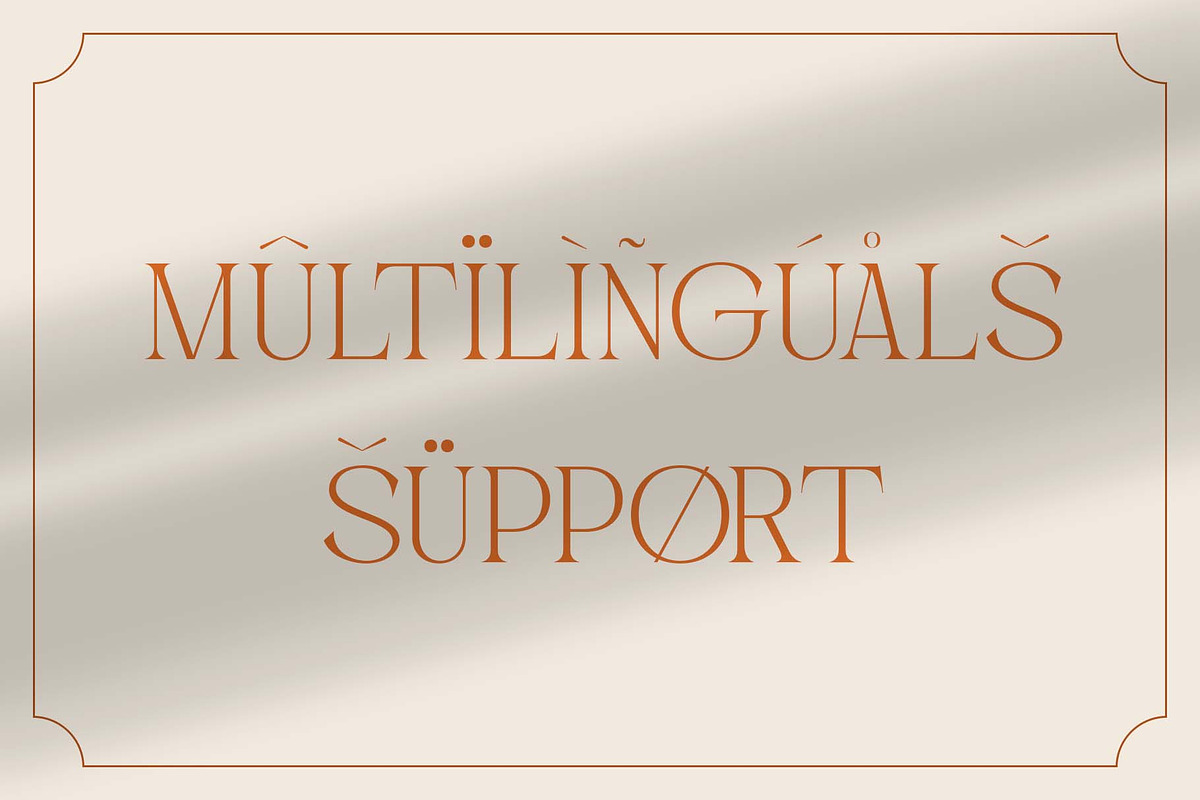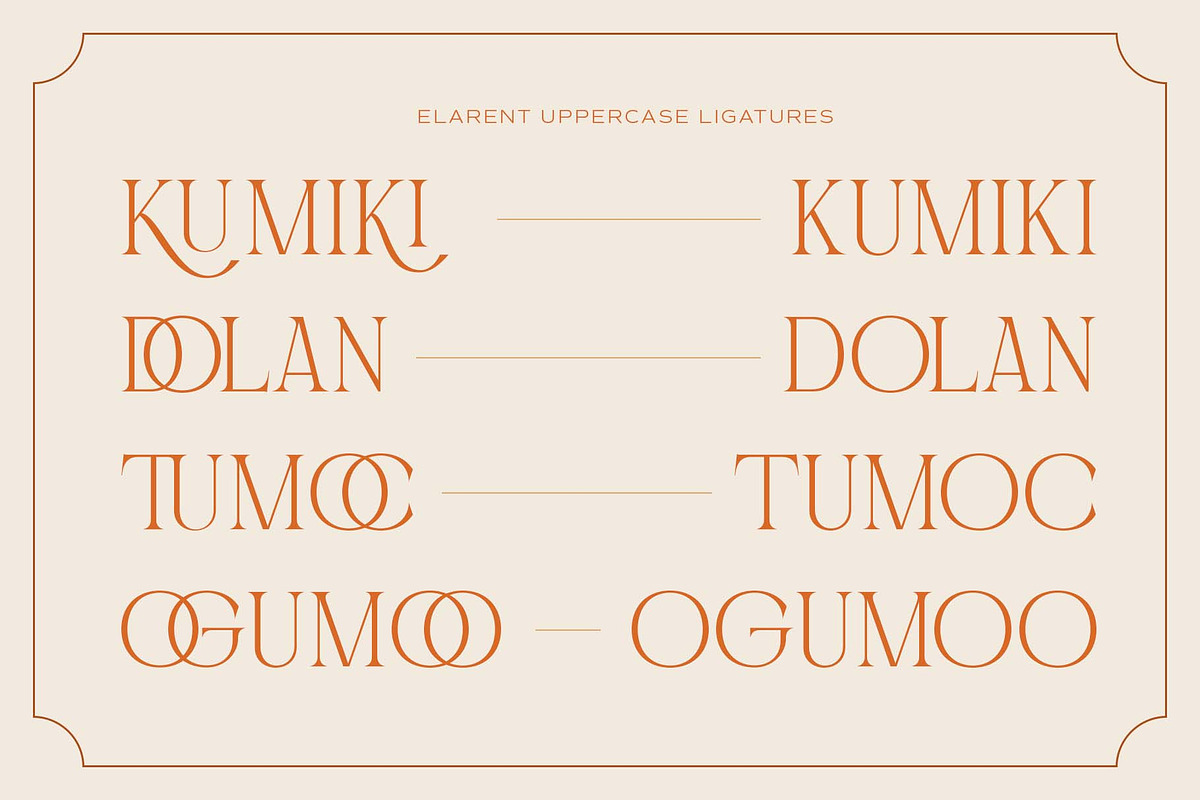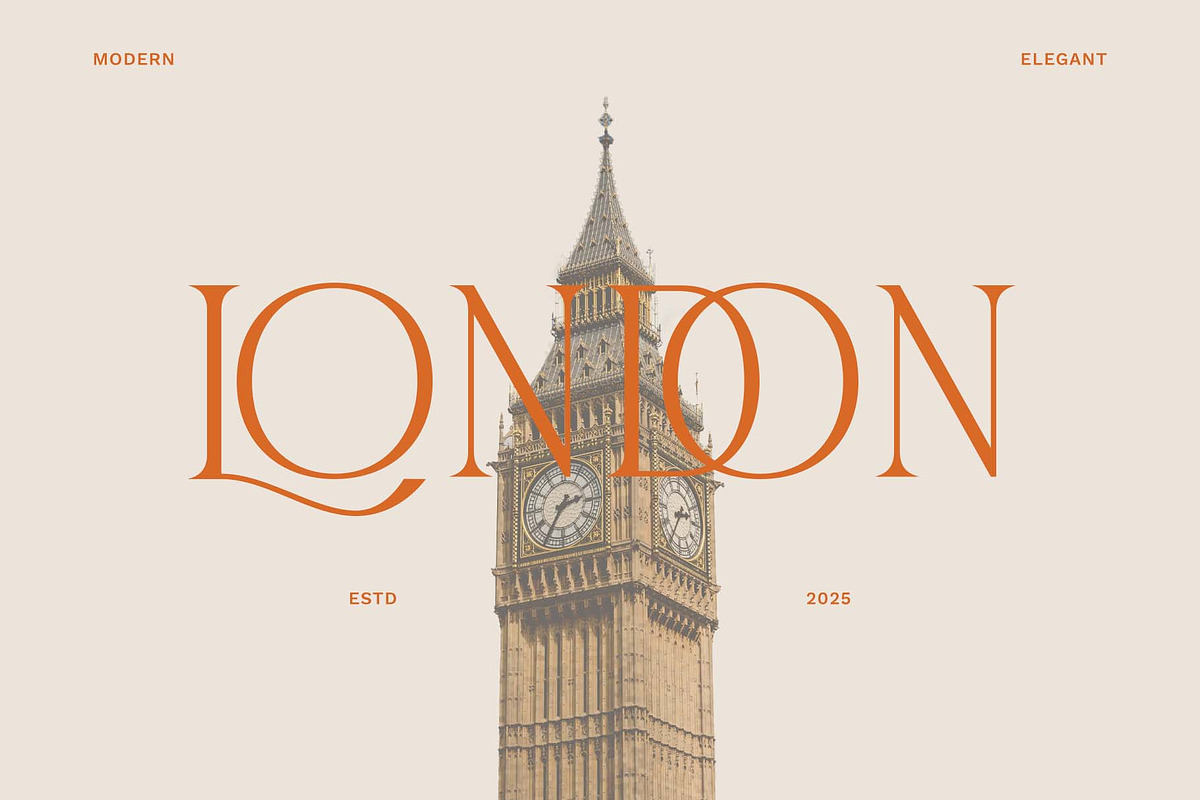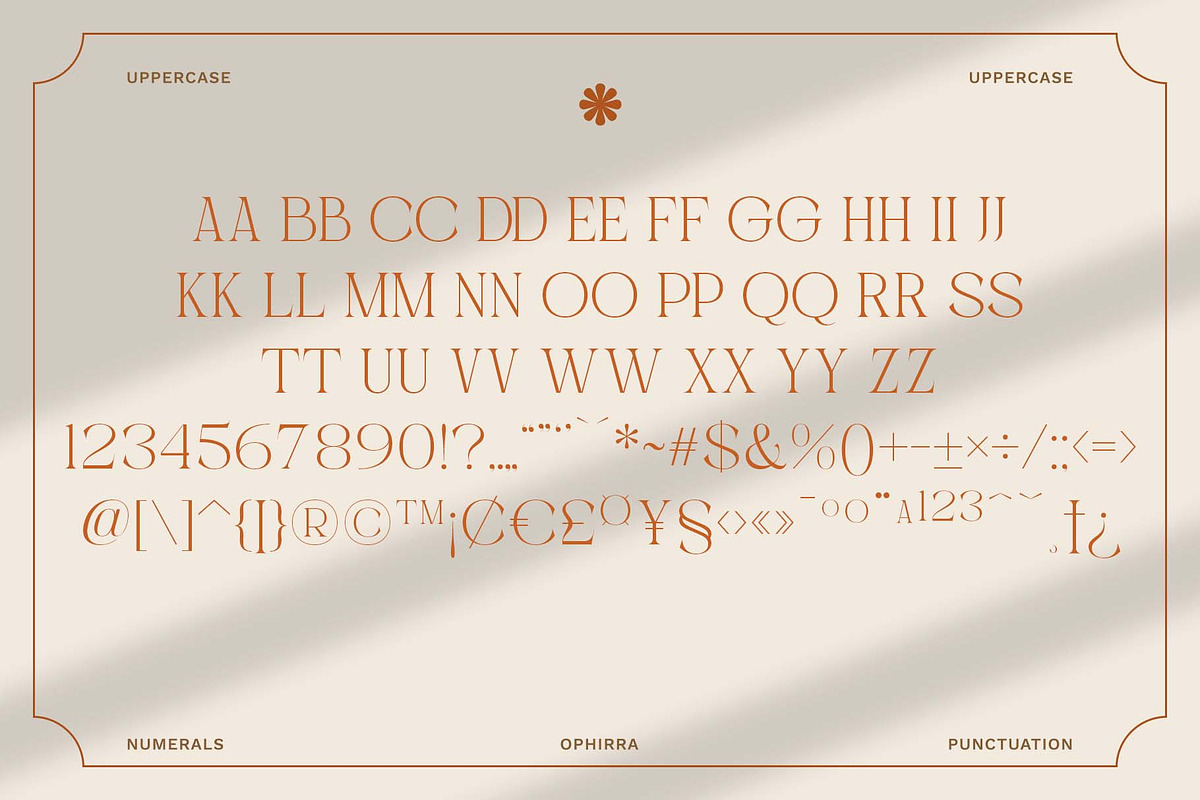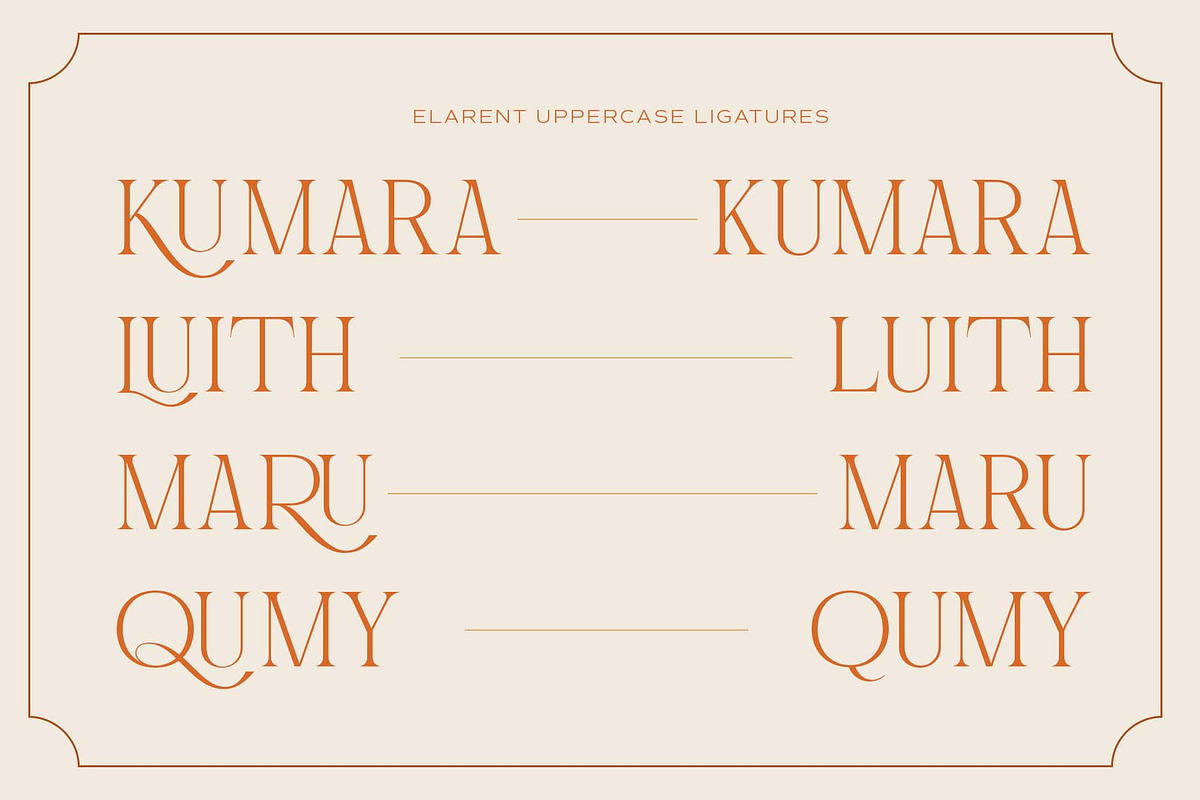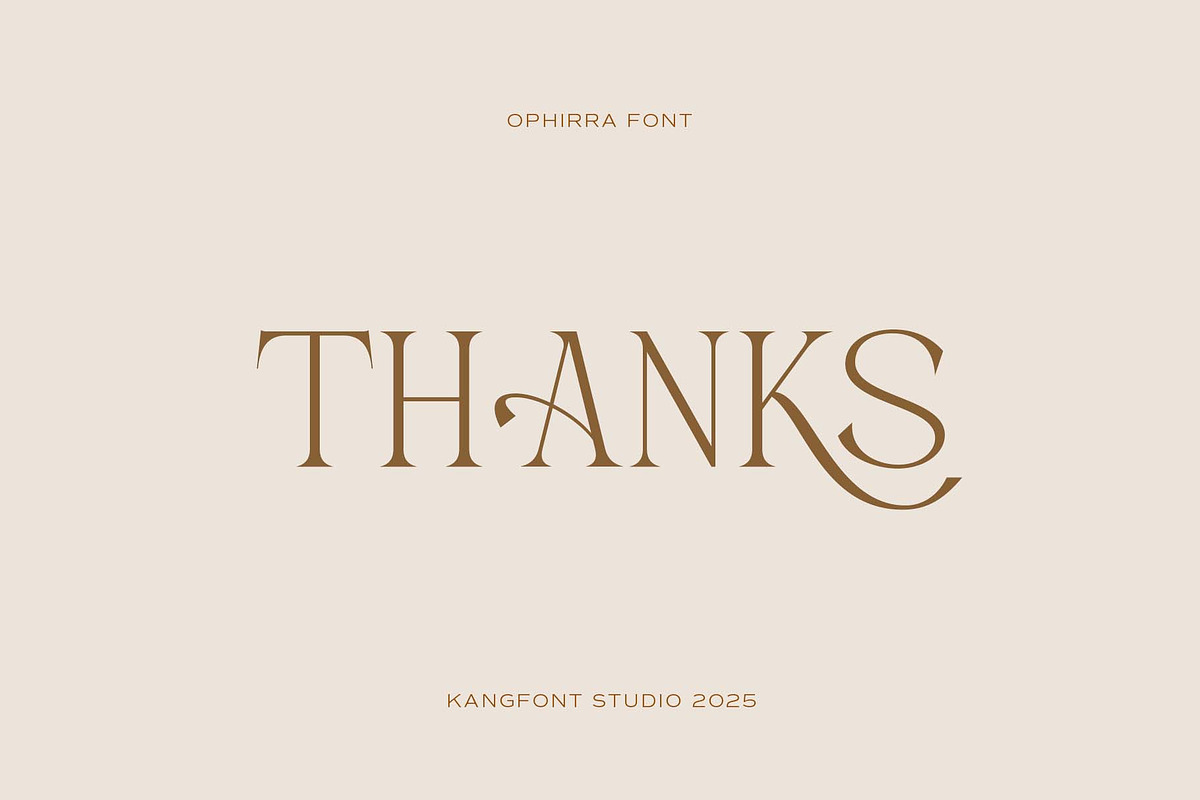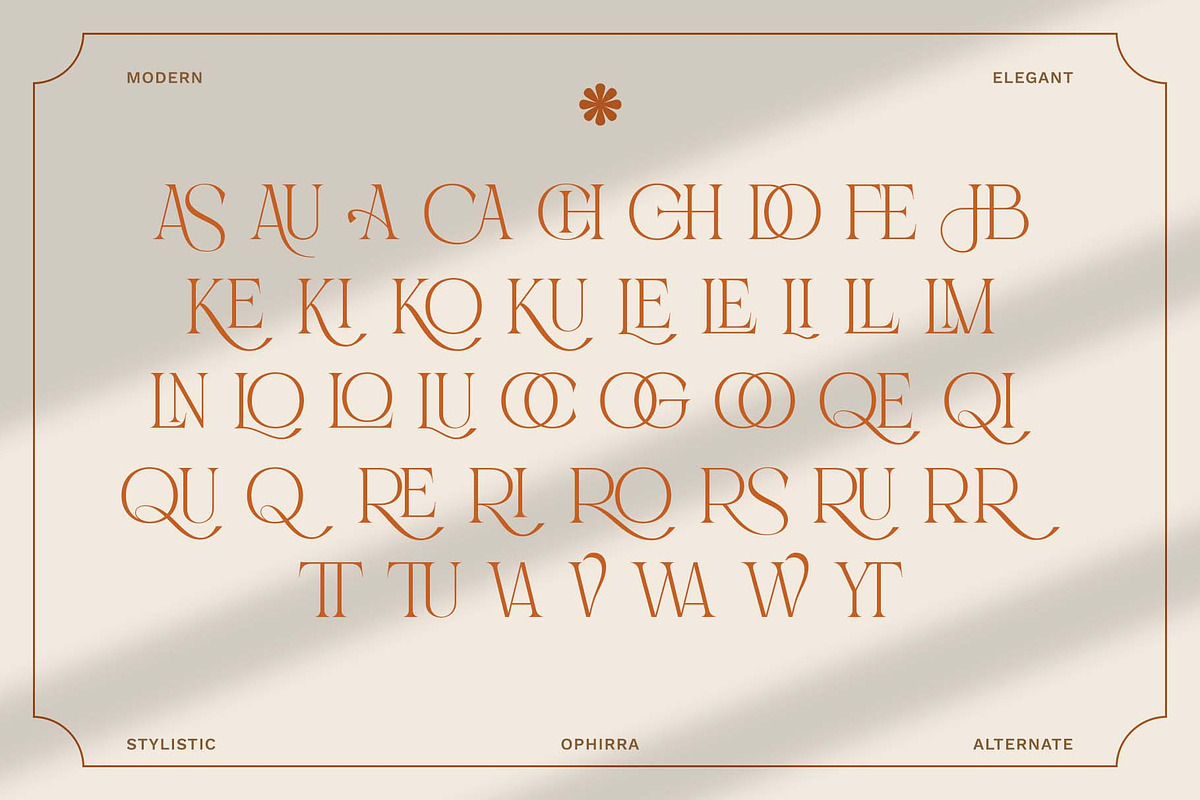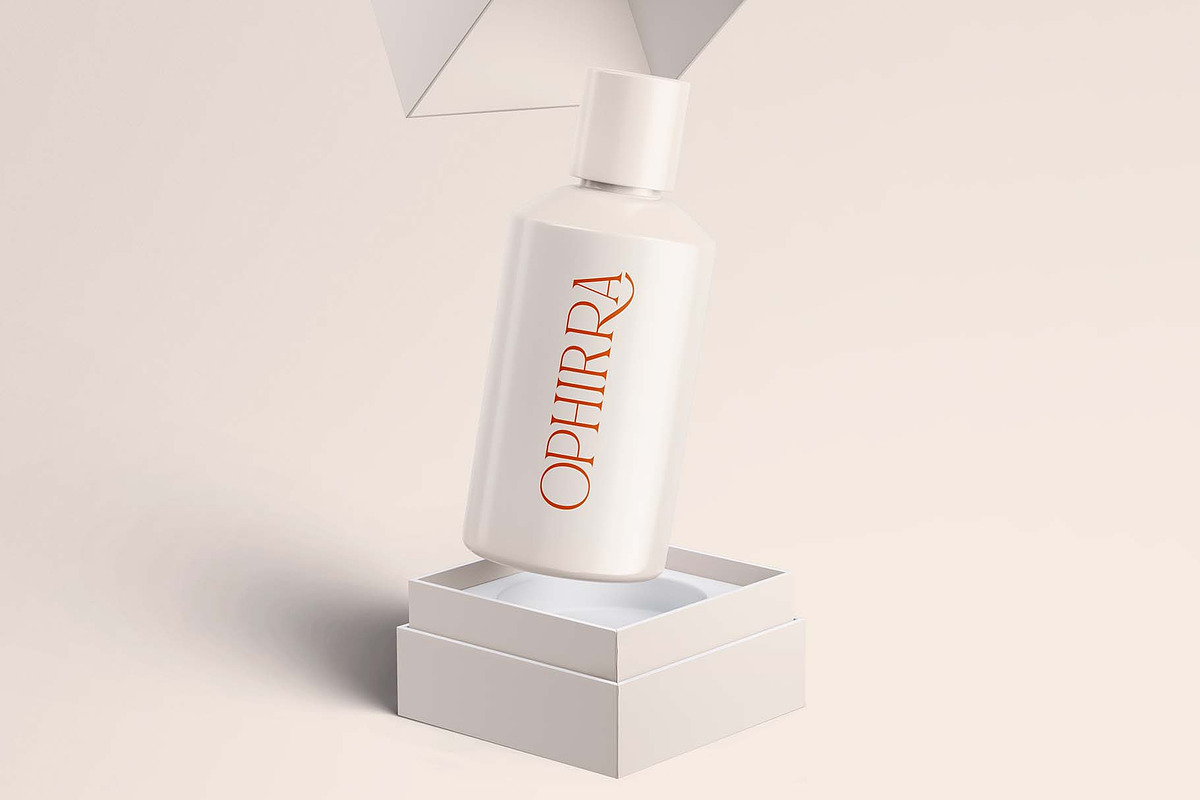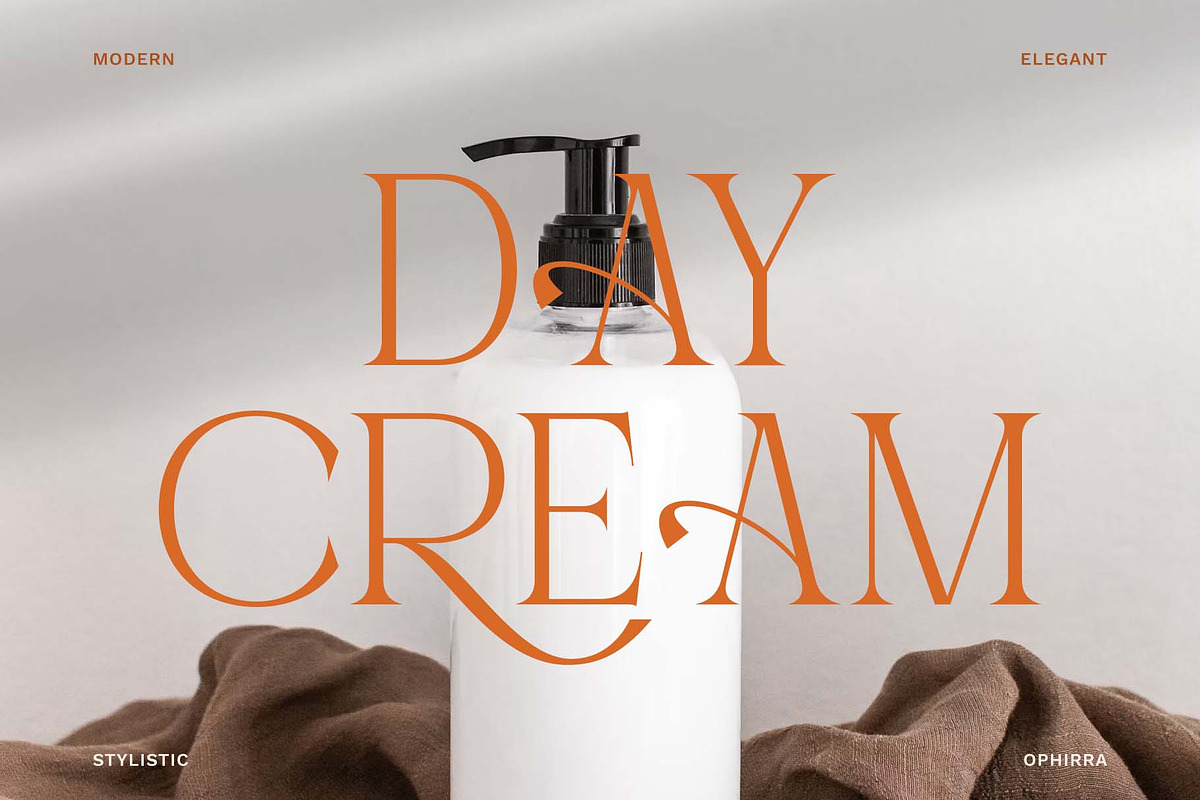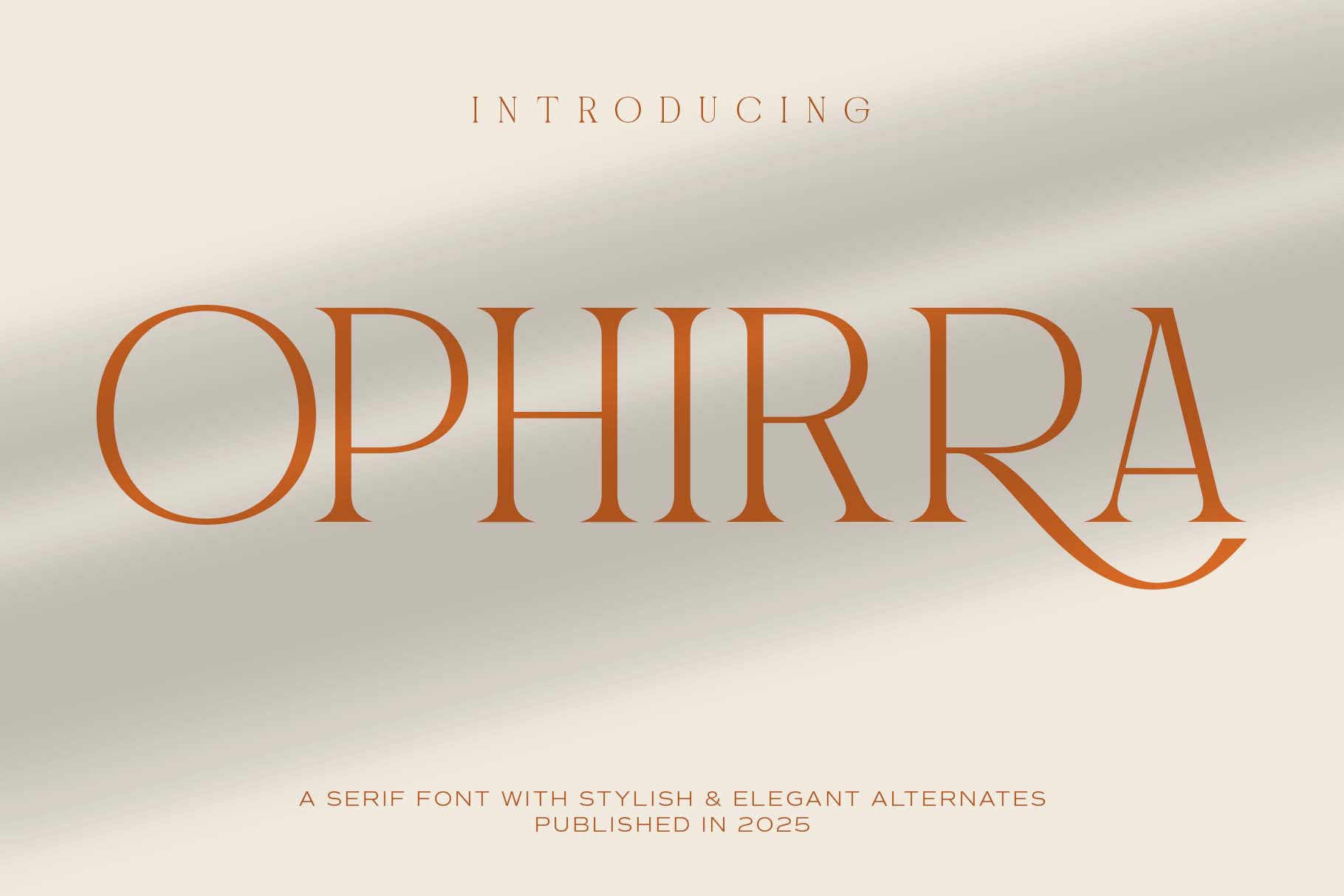
Ophirra – Elegant Serif Font
Ophirra is a refined serif typeface that blends classic elegance with a modern twist. Featuring clean lines, graceful curves, and beautifully crafted alternates, this font is designed to elevate any visual project. Its luxurious yet versatile look makes it perfect for branding, editorial layouts, wedding invitations, packaging, and other premium design needs. Published in 2025, Ophirra offers not just style but also functionality—making it a go-to choice for graphic designers and content creators who want to add a sophisticated and timeless touch to their work.
- Ligature & Stylistic alternate